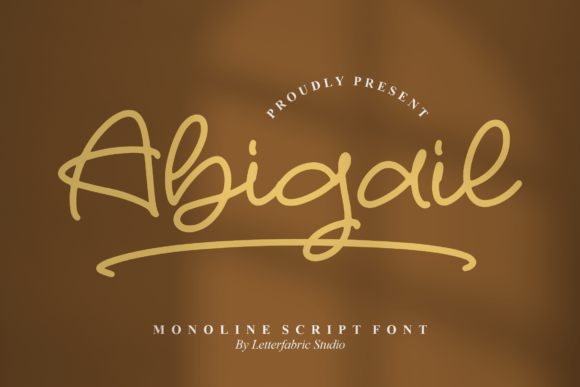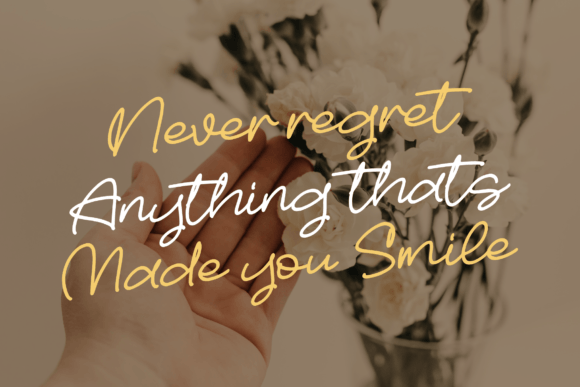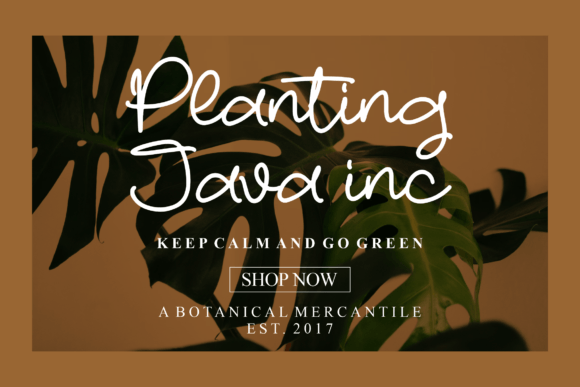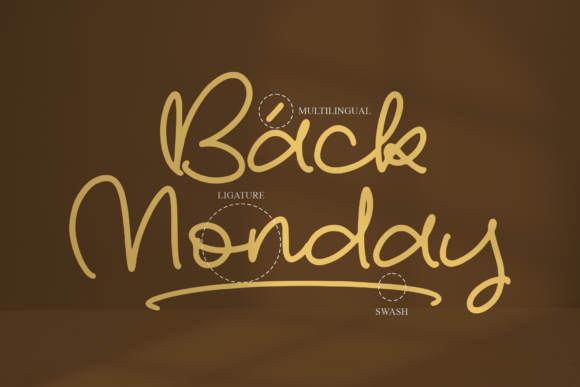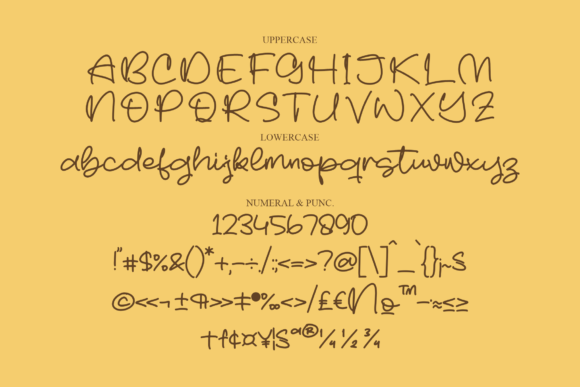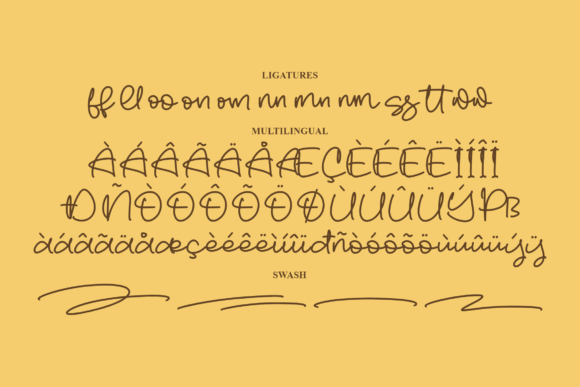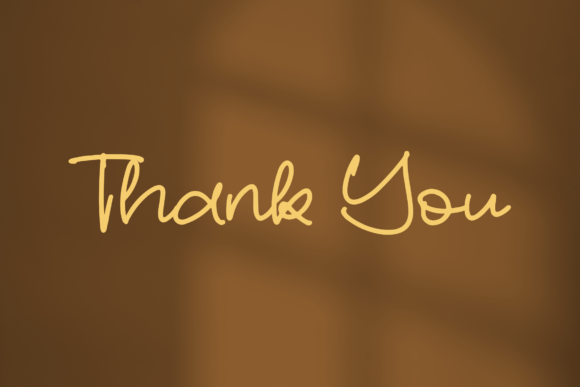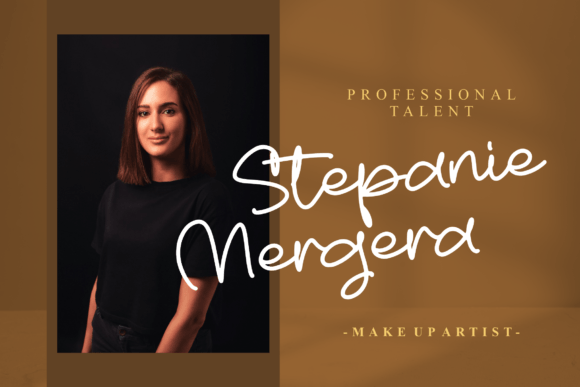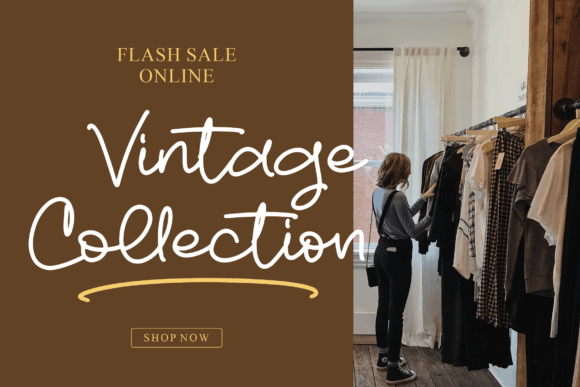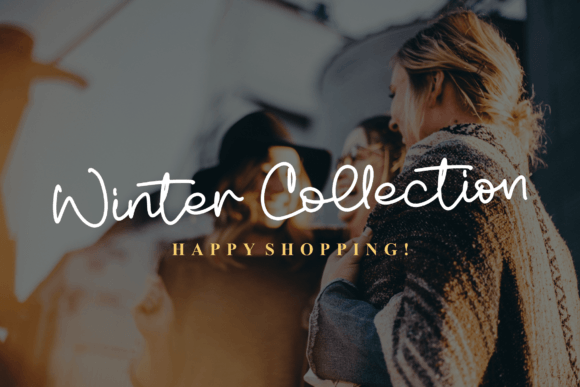
Abigail Font
About Abigail Font
Abigail is a monoline, signature font with a stylish handwritten feel full of curves, swashes, lines, and more. The balance in every word is truly extraordinary!
Abigail emerges as an exquisite monoline signature font, embodying a stylish handwritten feel characterized by elegant curves, swashes, lines, and more. The font’s design strikes a remarkable balance, making every word an extraordinary visual experience. Whether employed for personal branding, creative projects, or any design requiring a touch of sophistication, Abigail stands out as a versatile and aesthetically pleasing choice.
The monoline nature of Abigail contributes to its overall elegance. The consistent line thickness creates a smooth and cohesive appearance, lending the font a sense of modernity and simplicity. This makes Abigail well-suited for a variety of applications, where a clean and contemporary aesthetic is desired.
The stylish handwritten feel of Abigail adds a touch of personal flair to any project. The carefully crafted curves and swashes bring a sense of artistry, making each word feel unique and visually captivating. This makes Abigail an excellent choice for personal branding, adding a distinctive and memorable signature style to your identity.
Abigail’s balance in every word is truly extraordinary, enhancing the overall visual harmony of the font. This attention to balance ensures that the font is not only aesthetically pleasing but also legible and versatile. Whether used in headings, invitations, or other design elements, Abigail adapts seamlessly to different contexts, maintaining its elegance and impact.
The inclusion of lines and other design elements in Abigail adds a layer of detail that elevates its sophistication. These intricate touches enhance the overall visual interest of the font, making it a standout choice for projects that demand a high level of craftsmanship and creativity.
In summary, Abigail is more than just a font; it’s a design asset that brings a unique blend of elegance and handwritten charm. Its versatility, balance, and stylish features make it a valuable tool for designers seeking to add a touch of sophistication to their projects. With Abigail, your words don’t just convey meaning—they become a visual masterpiece, showcasing a refined and distinctive aesthetic.